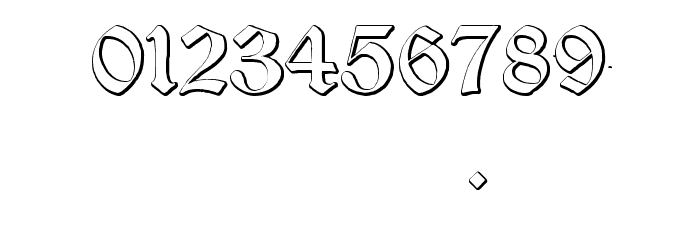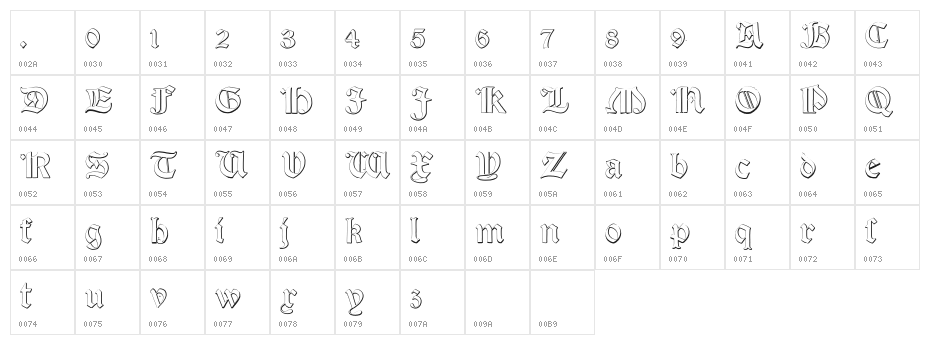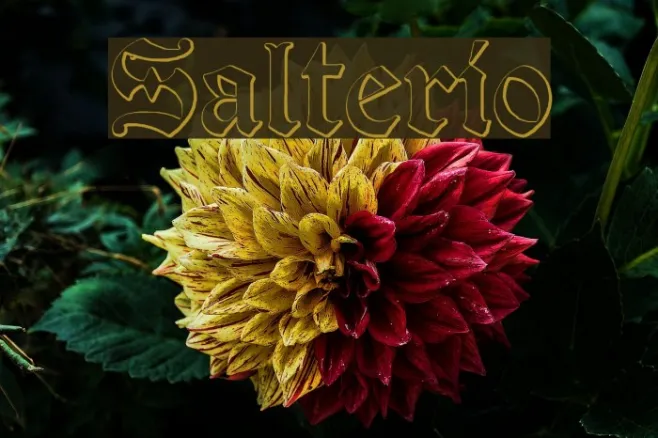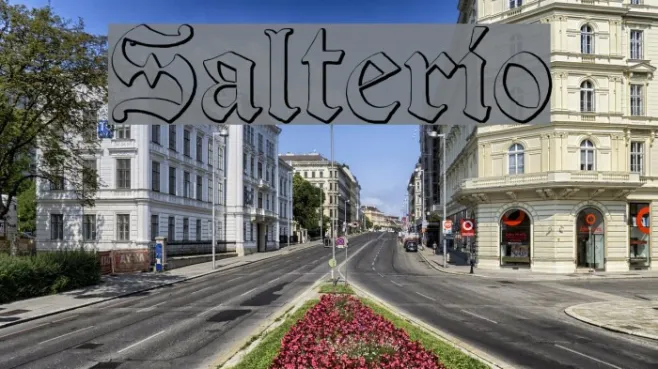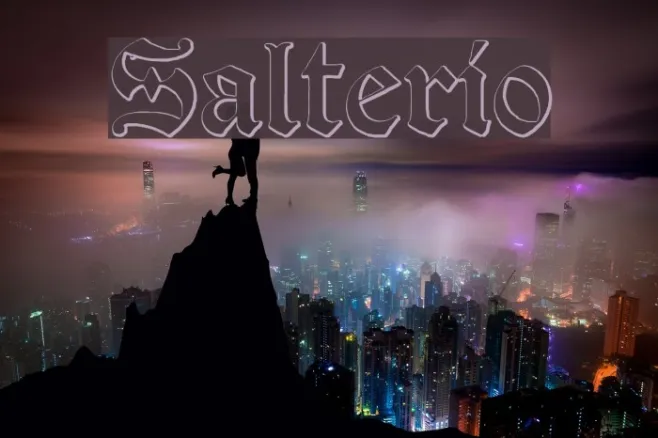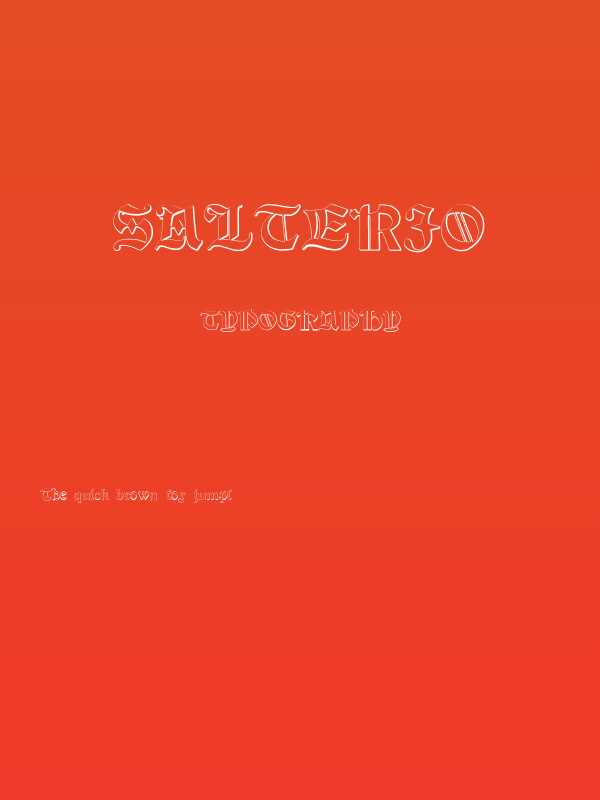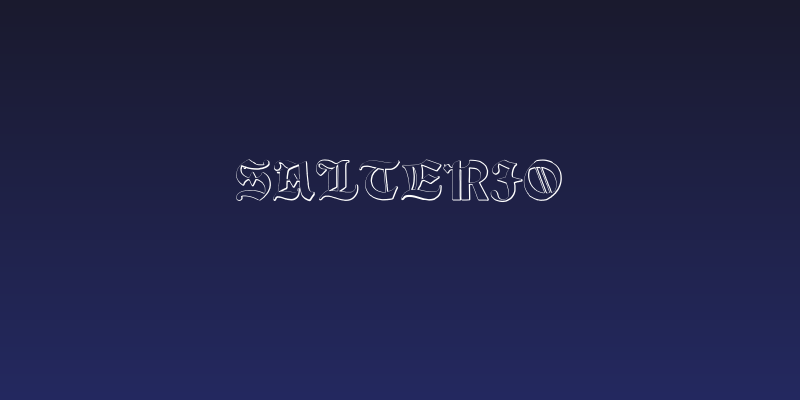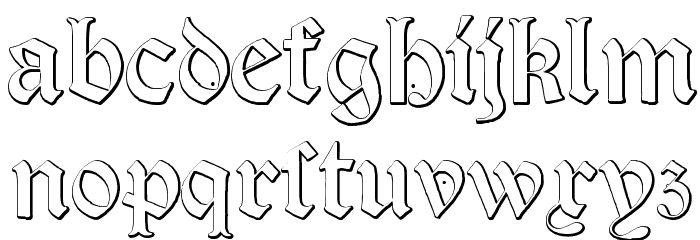
Salterio Font
Salterio Description
This font exhibits a classic Blackletter style, characterized by its intricate and ornate letterforms. The uppercase letters are bold and angular, with sharp serifs and a distinct medieval aesthetic. The lowercase letters maintain a similar style, with a slightly more rounded appearance, providing a harmonious balance between the two cases. The numerals are consistent with the overall design, featuring the same decorative elements. The font's unique style is further enhanced by its medium contrast in stroke thickness, giving it a striking and elegant appearance. This font is ideal for projects that require a historical or traditional touch.
| Use Case | Headlines, Logos, Decorative text |
| Proposed Projects | Suitable for historical documents, wedding invitations, book covers, and branding that requires a traditional or medieval touch. |